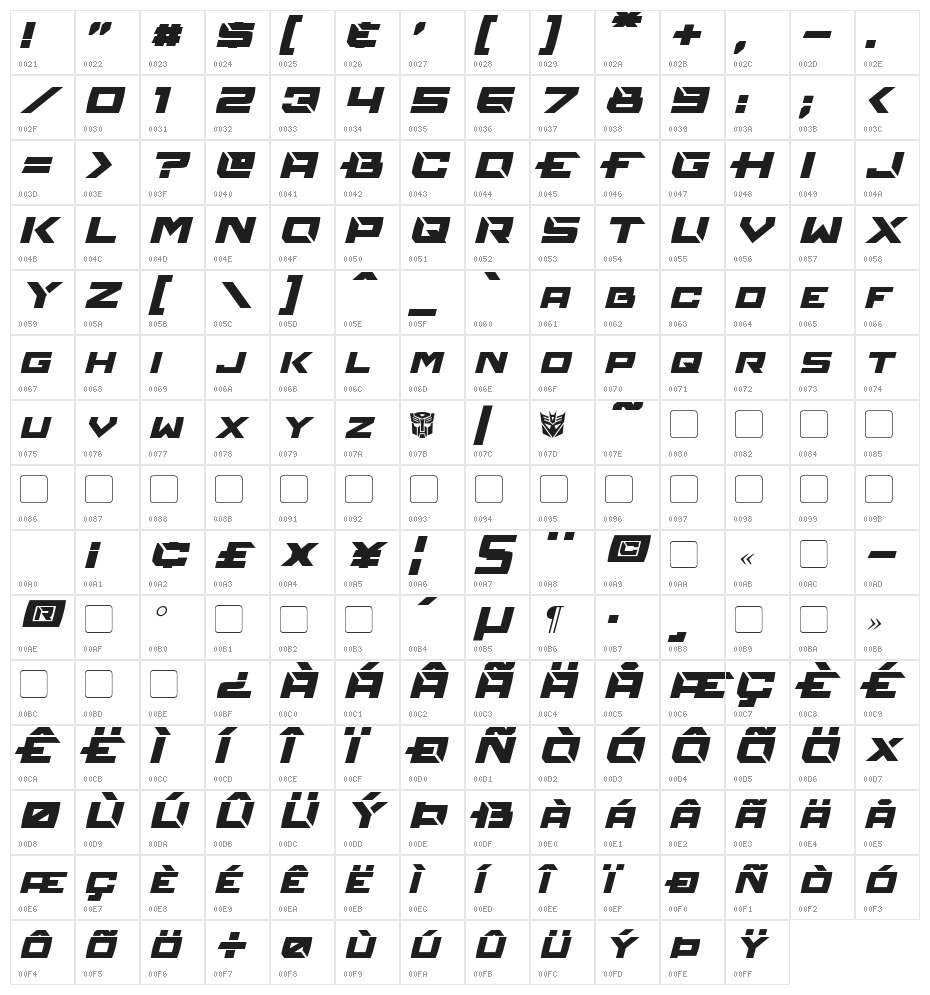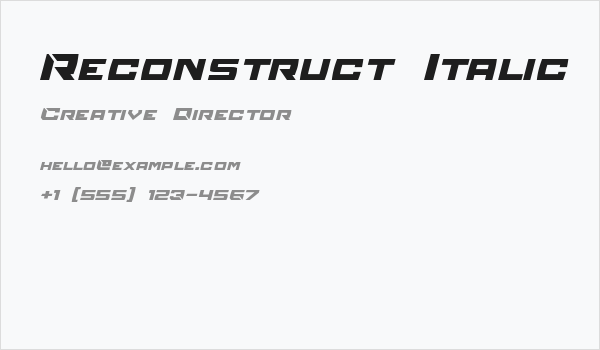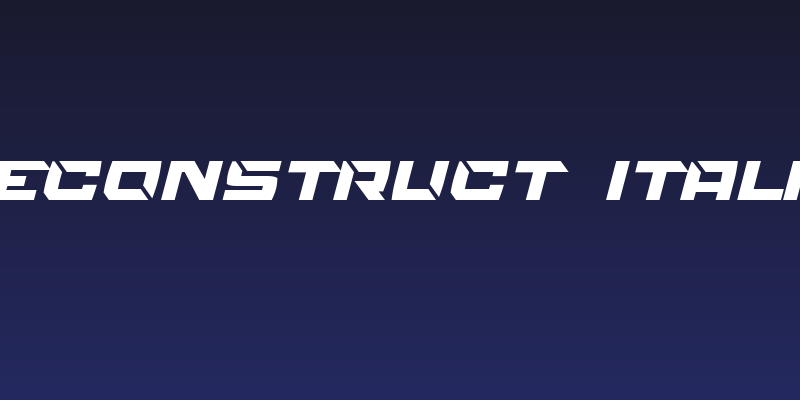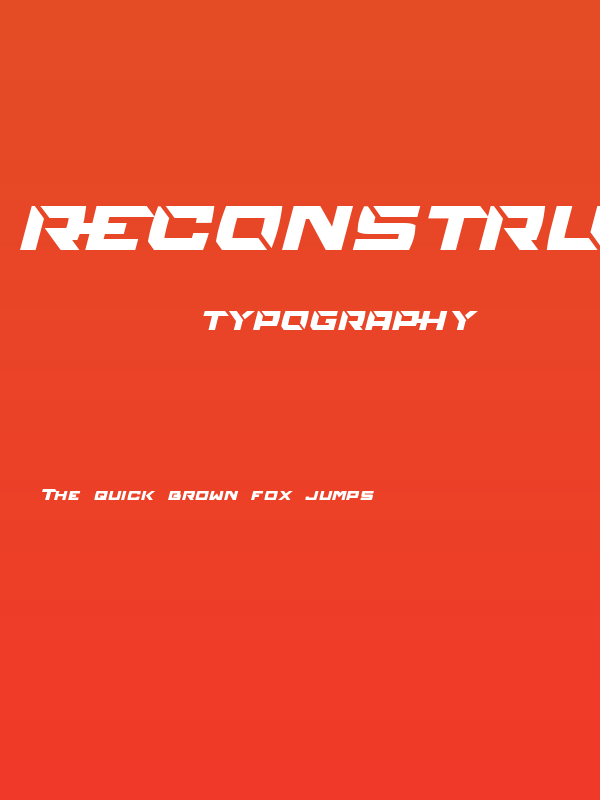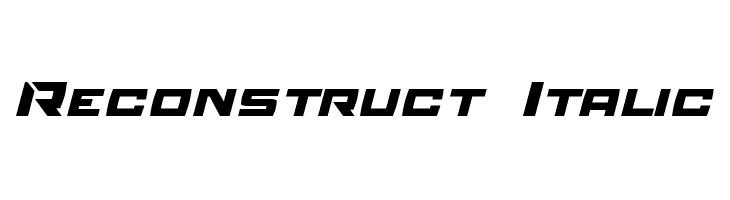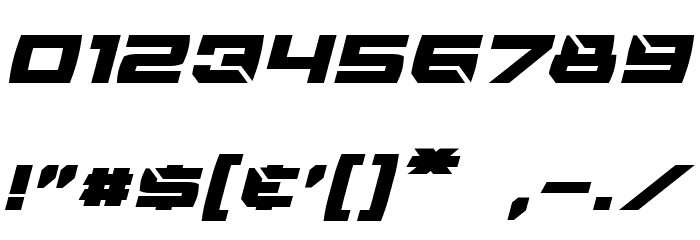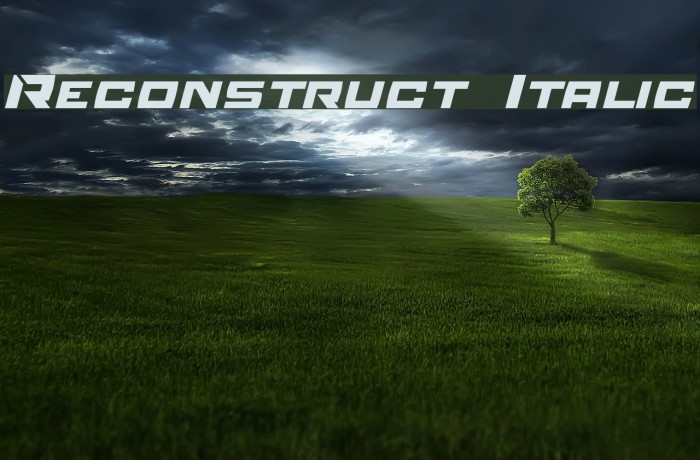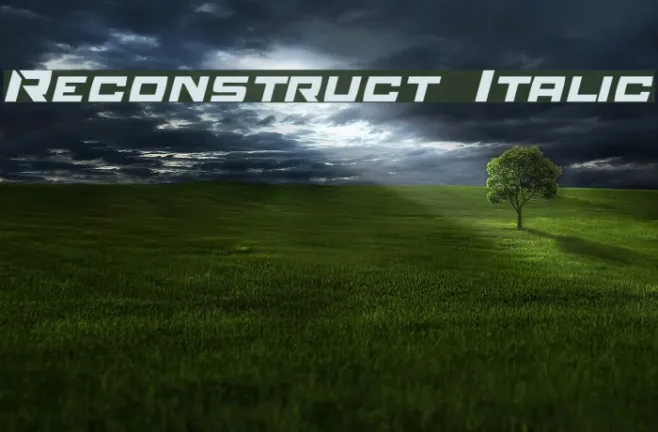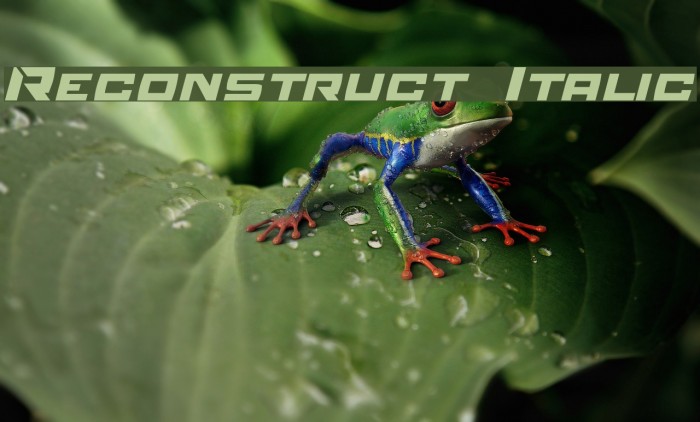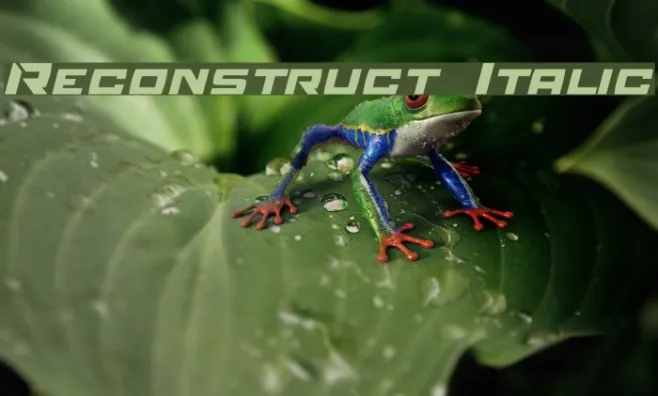
Reconstruct Italic Font
Reconstruct Italic Description
This font features a bold and dynamic italic style with sharp, angular edges and a futuristic appearance. The characters are designed with a forward-leaning slant, giving a sense of motion and speed. The strokes are thick and consistent, providing a strong visual impact. The geometric shapes and clean lines contribute to its modern and edgy look, making it suitable for attention-grabbing designs. The font maintains a uniform weight throughout, ensuring readability while still delivering a striking presence.
| Proposed Projects | Ideal for sci-fi themed projects, video game titles, sports branding, and dynamic posters. |